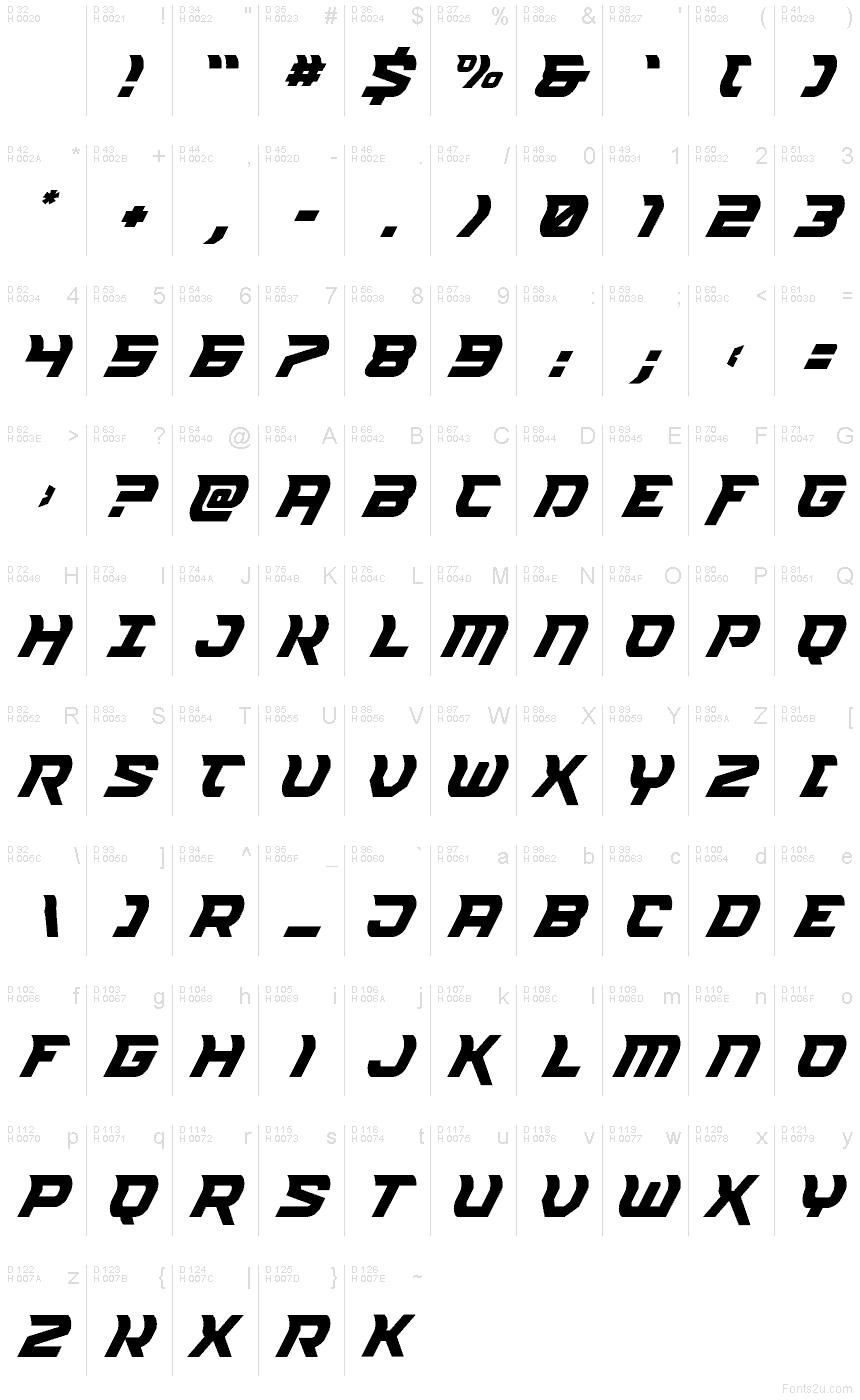
Renegent Italic
Renegent Italic font by Iconian Fonts is a futuristic display font with an expanded width. Its geometric structure, sleek lines, and sharp angular shapes build a modern aesthetic with a strong presence that is mostly due to its bold weight. Unlike the classic style of usual fonts, it brings forth uncommon shaped characters likely to capture every reader’s attention.
A free expanded futuristic display font by Iconian Fonts, this one is suitable for several projects including website designs, applications user interfaces, posters, banners magazines/book covers visuals. Use it also in developing social media post designs or video-game themes and graphics — it will look just right!